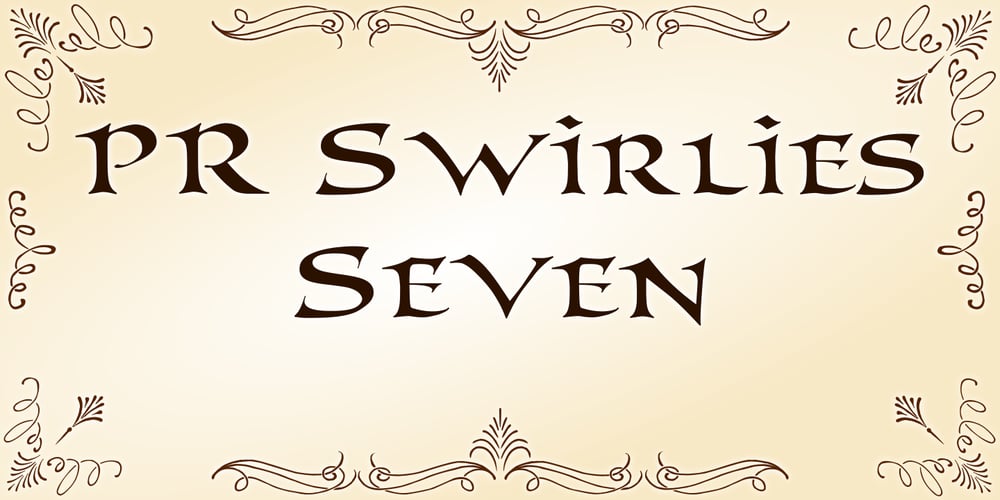
PR Swirlies 07 Font Family was designed by Peter Rempel and published by PR Fonts. PR Swirlies 07 contains 1 styles and family package options. This font is a collection of simple calligraphic ornaments suitable for invitations, gift tags, and anything that can benifit from a “spoonful of sugar” visually. Influenced by Celtic knotwork and tattoo designs, interlacing bands are broken to emphasize the “over and under” movement.